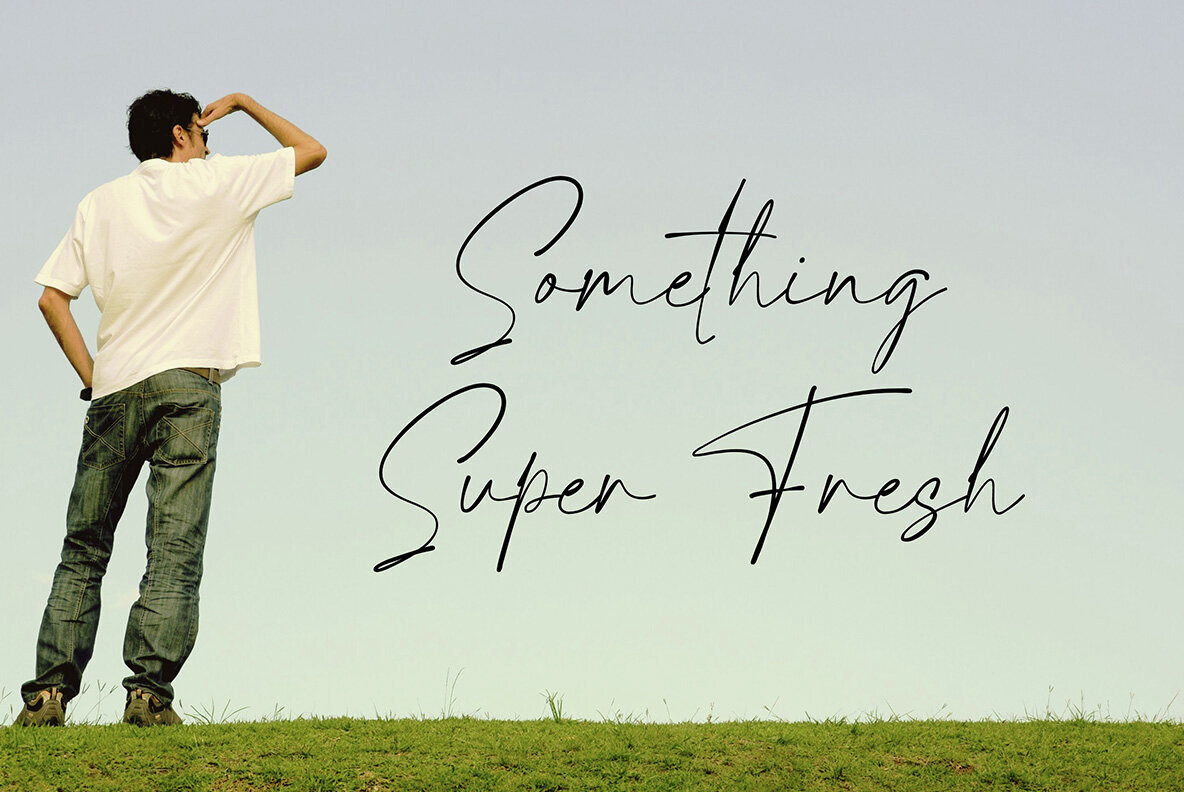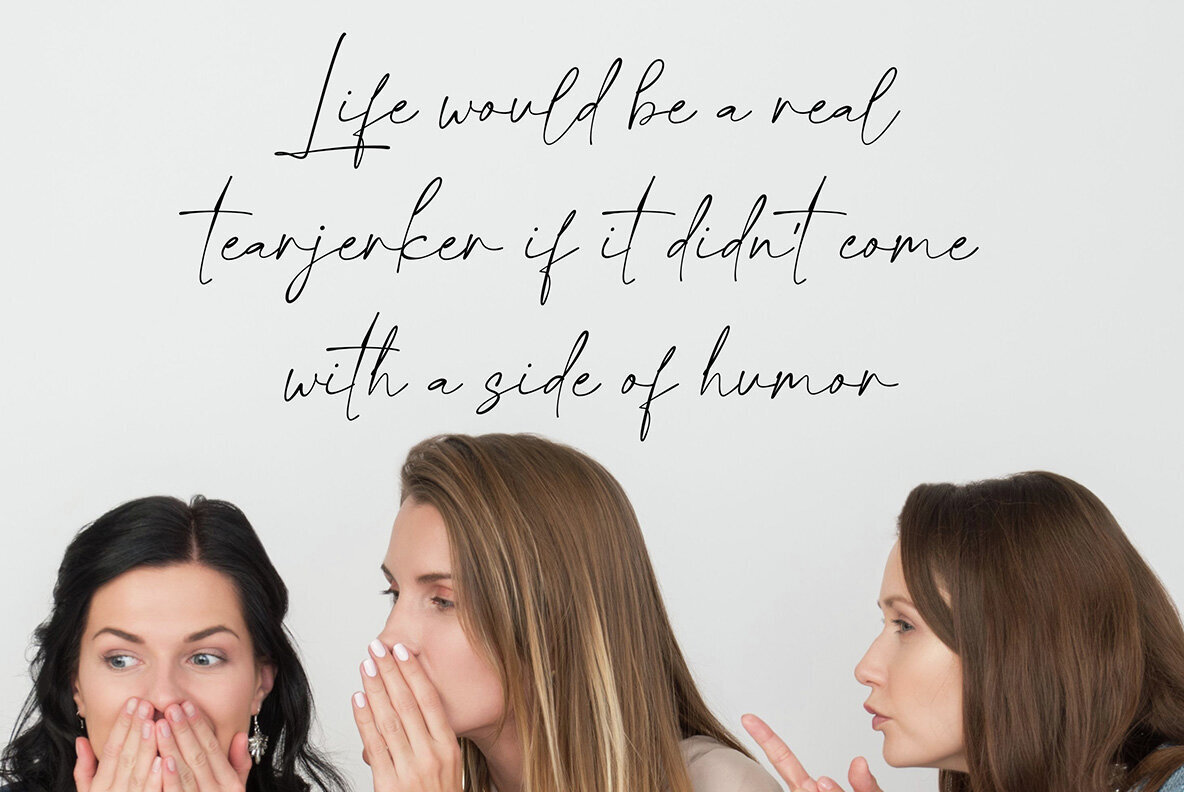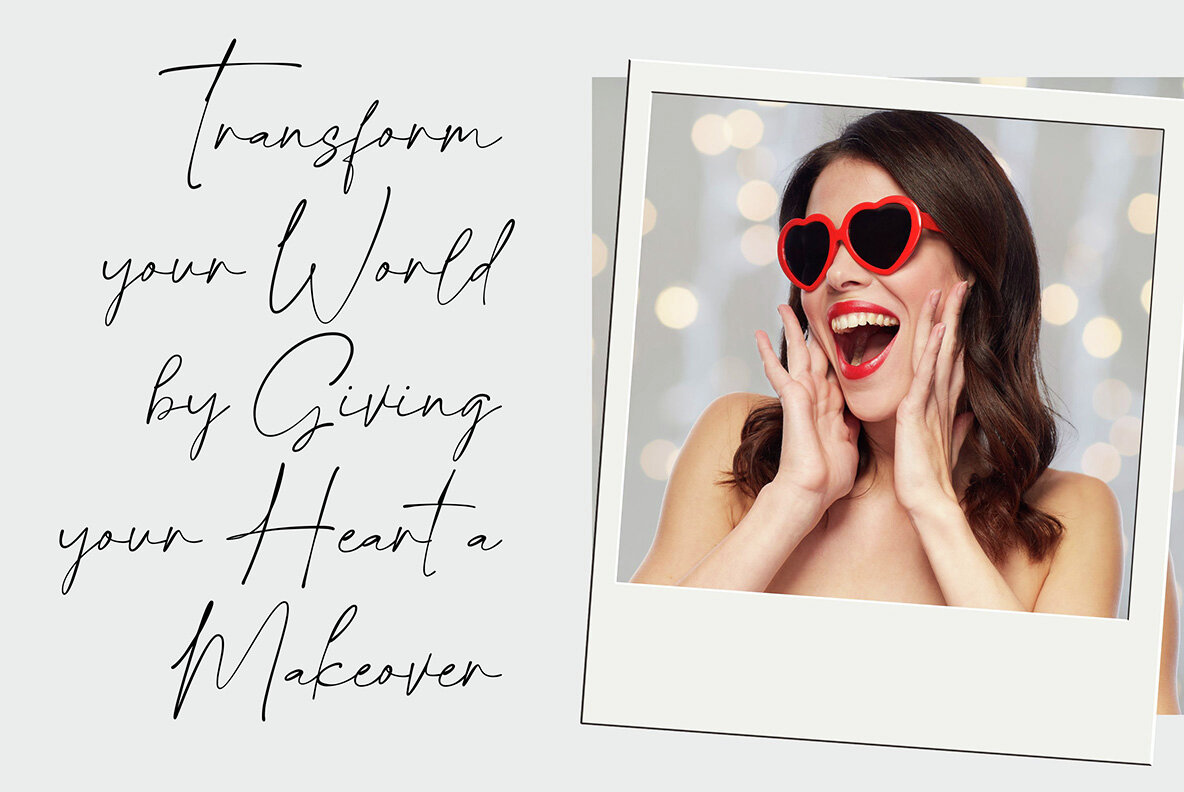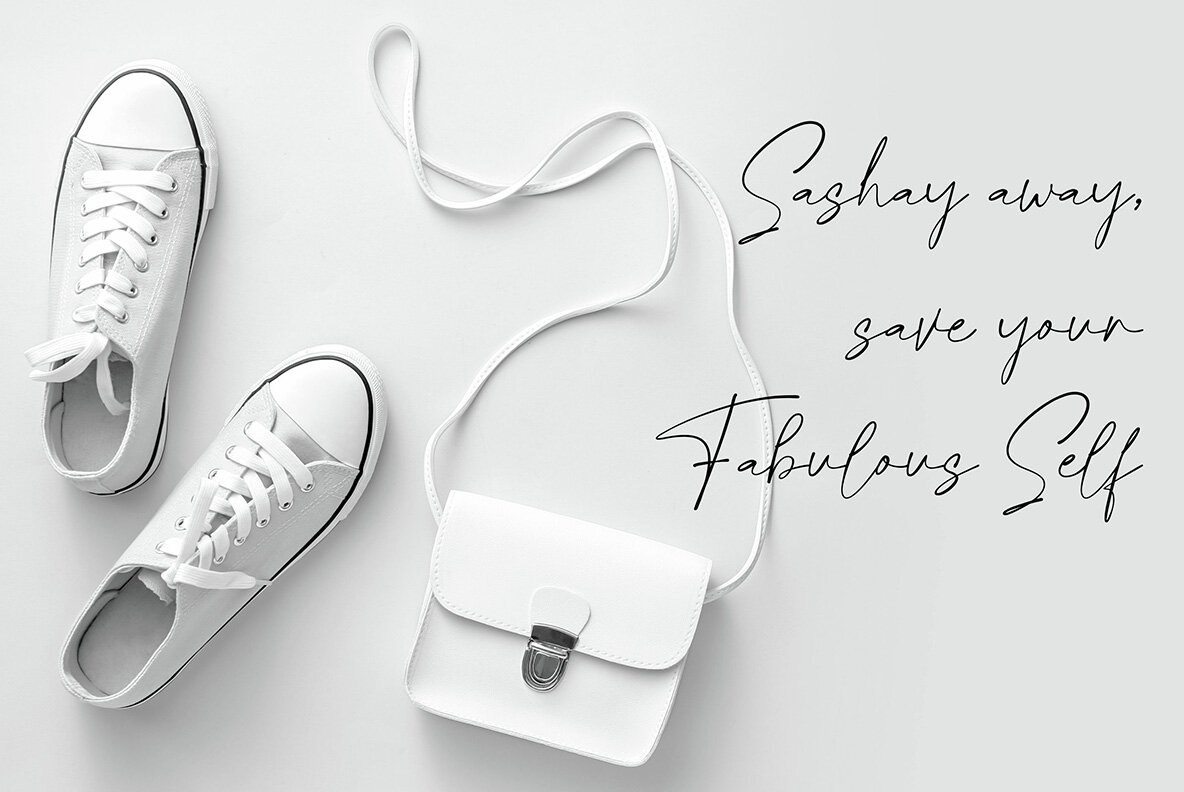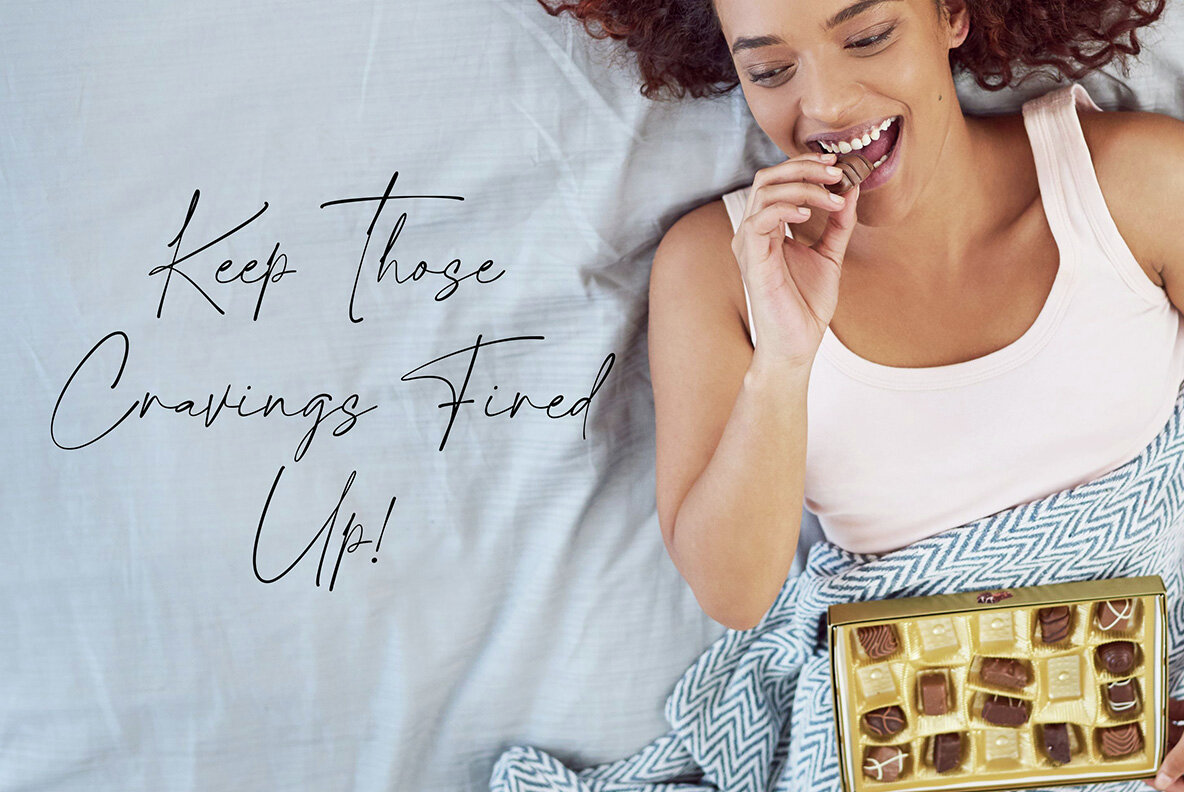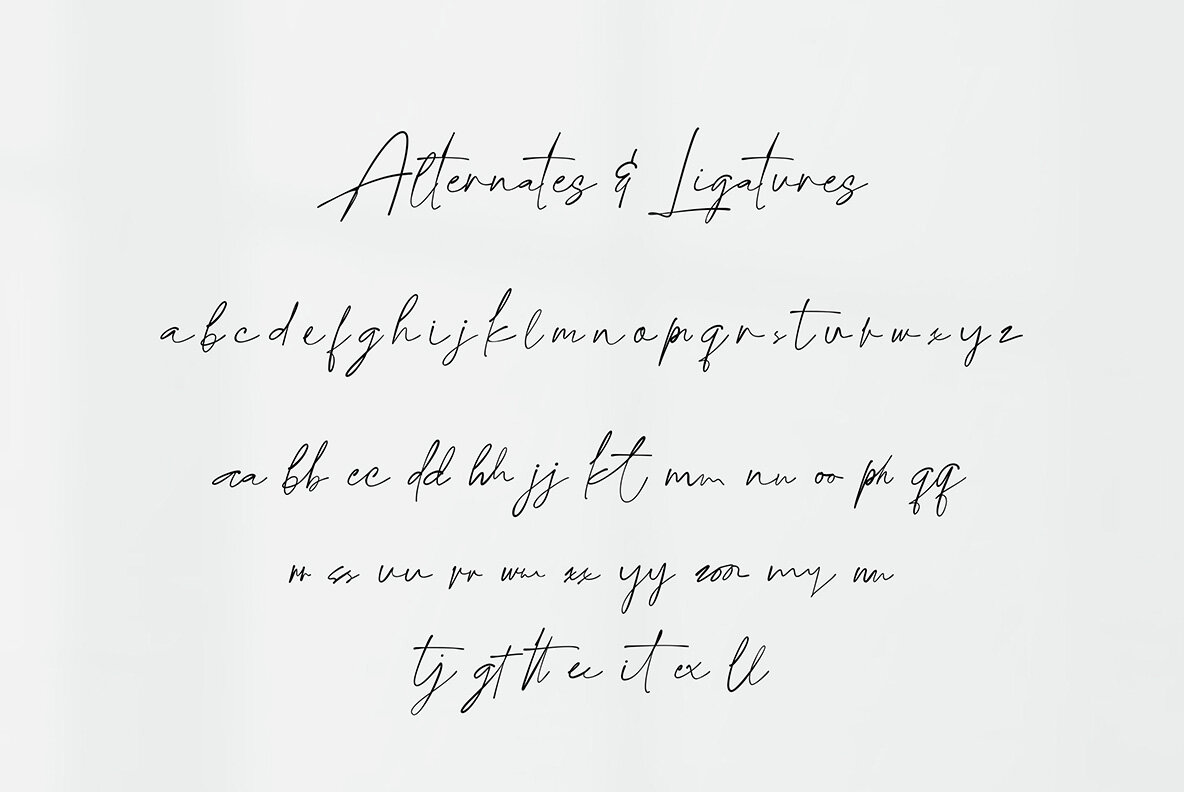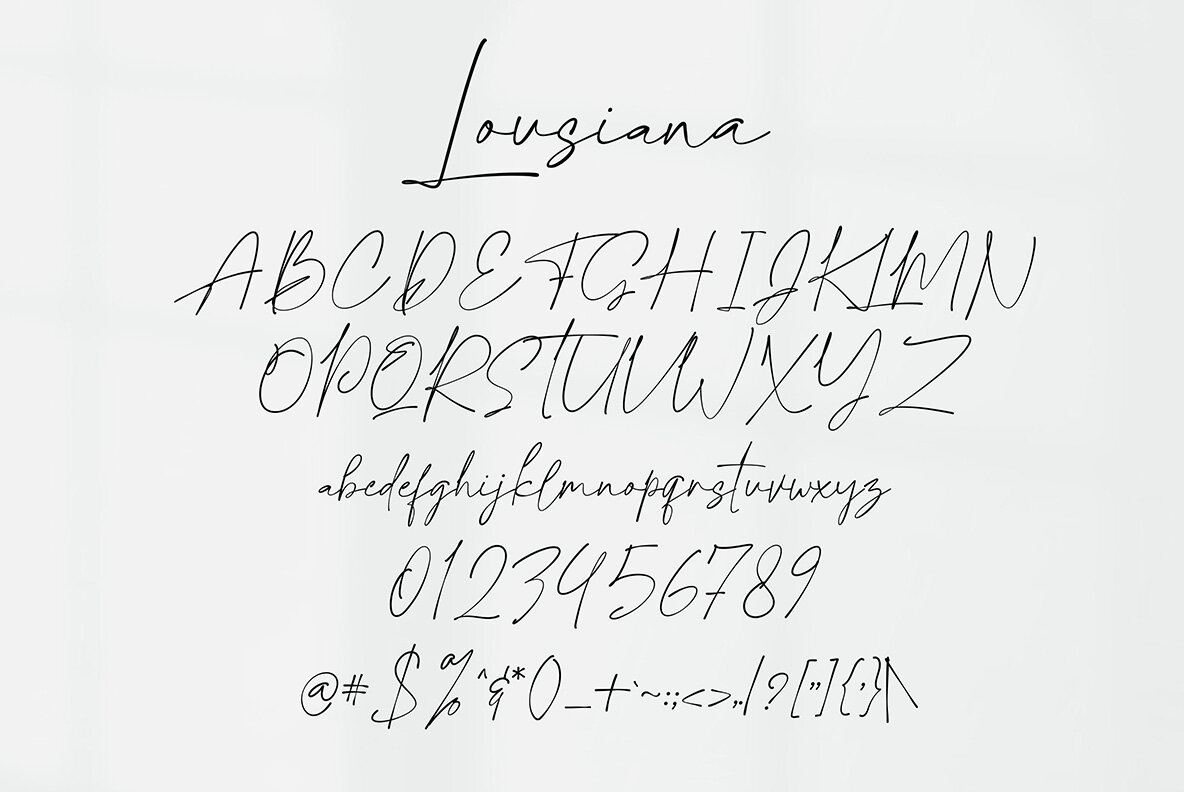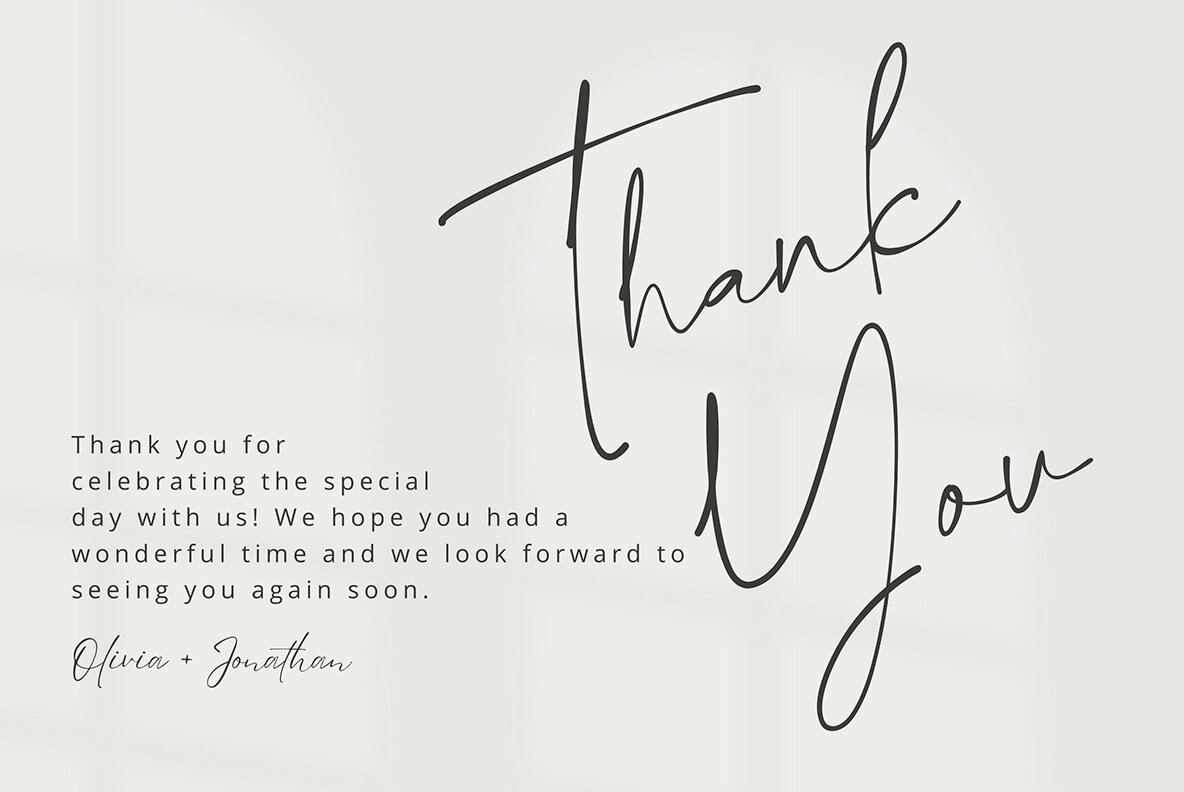
Lousiana Font
Lousiana Regular
Lousiana is a unique organic handwritten font perfect for elevating branding, adding personal touches to invitations, and enhancing product packaging. This font strikes a balance between modern simplicity and authentic charm. It features a full set of uppercase and lowercase letters, numbers, punctuation, and multilingual symbols. Lousiana also offers lowercase beginning and ending swashes, ligatures, and bonus swashes to give your designs a touch of elegance and flair.